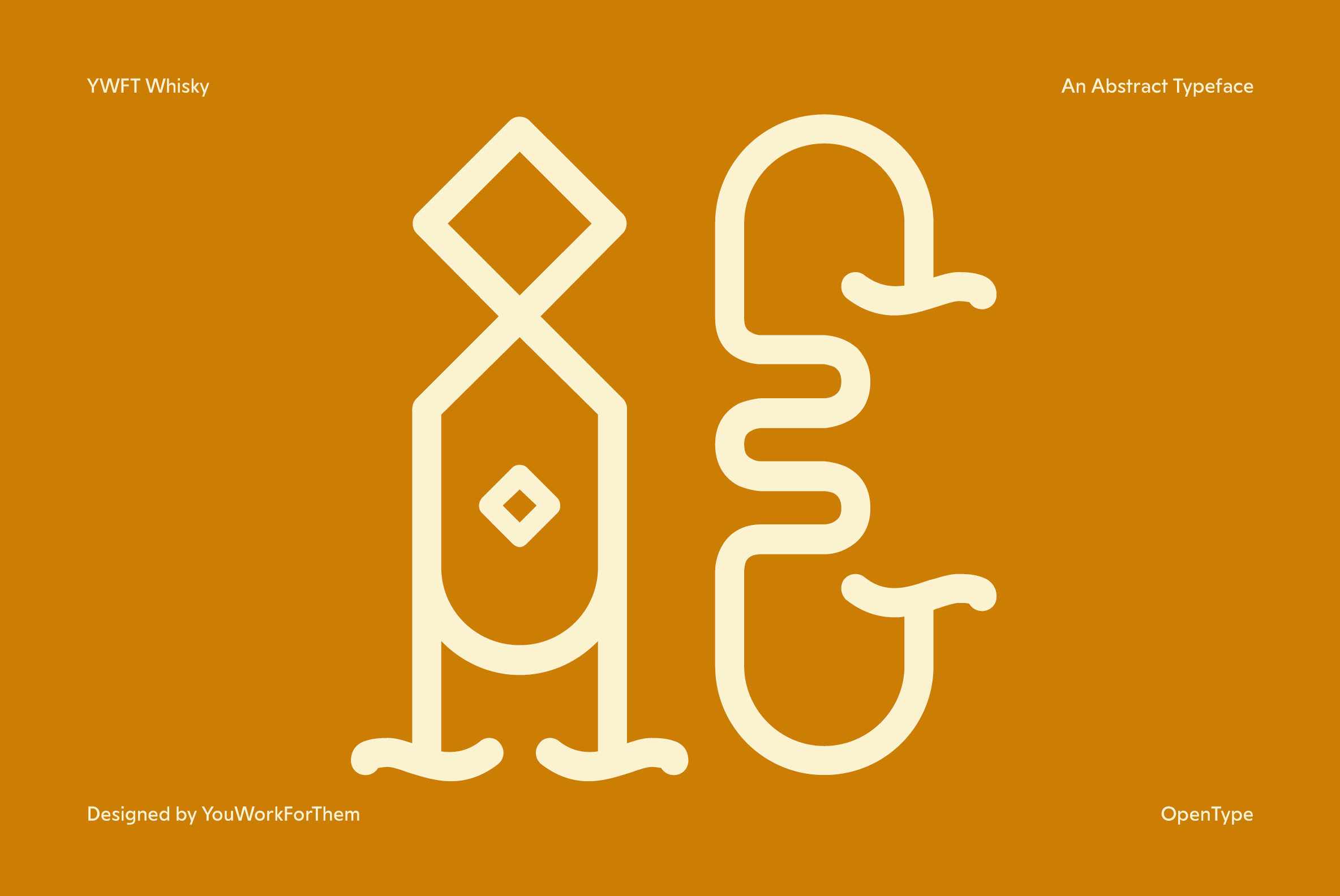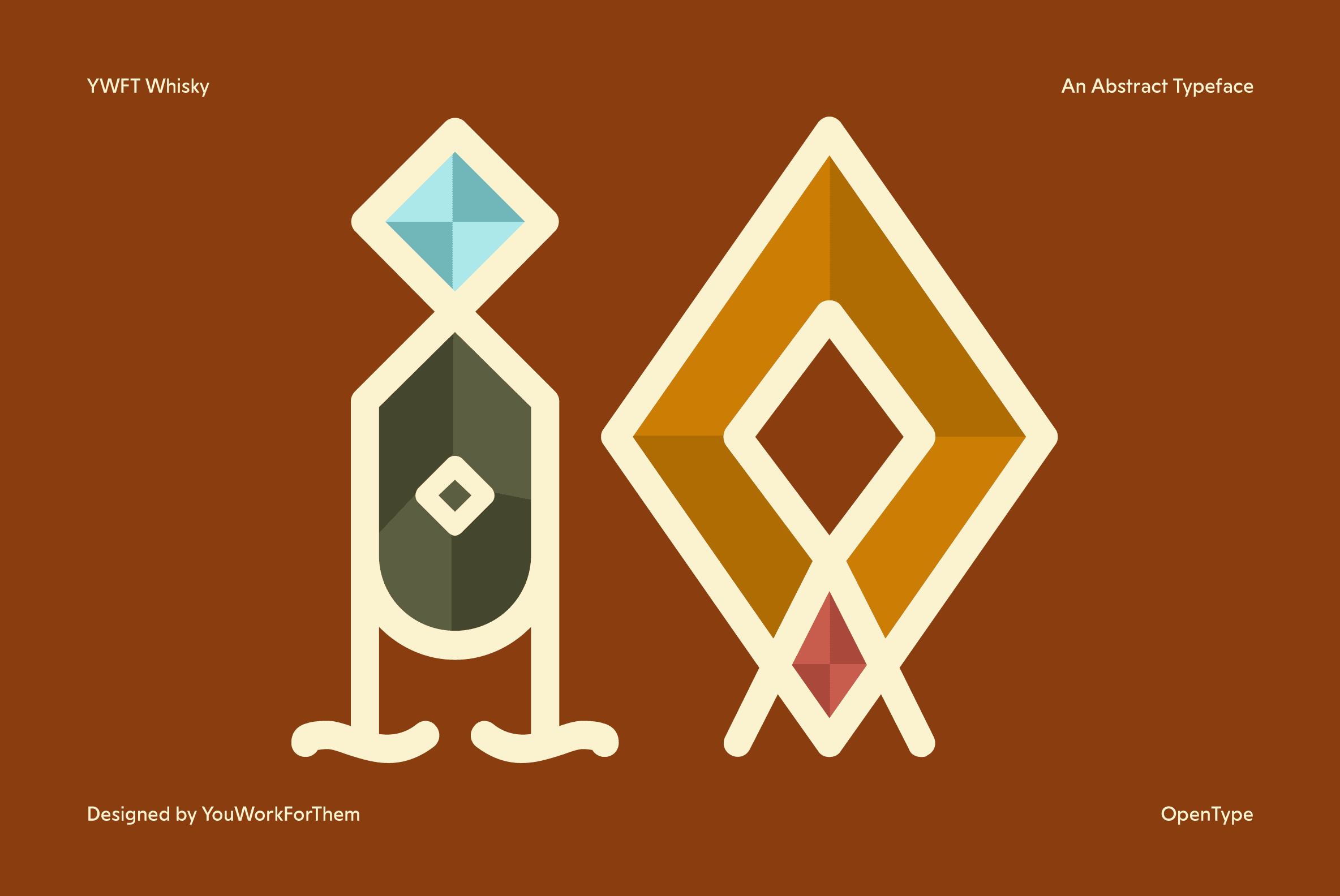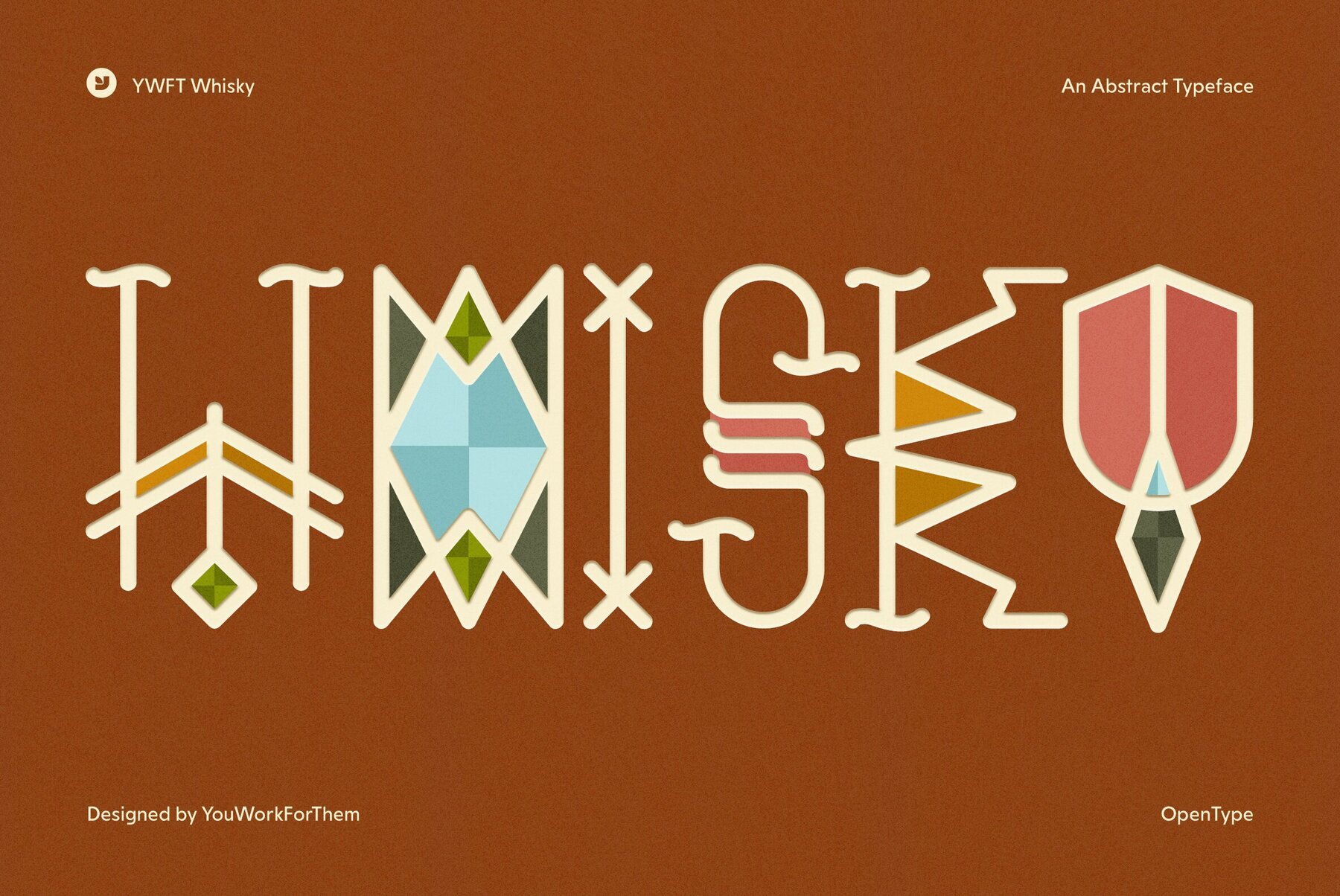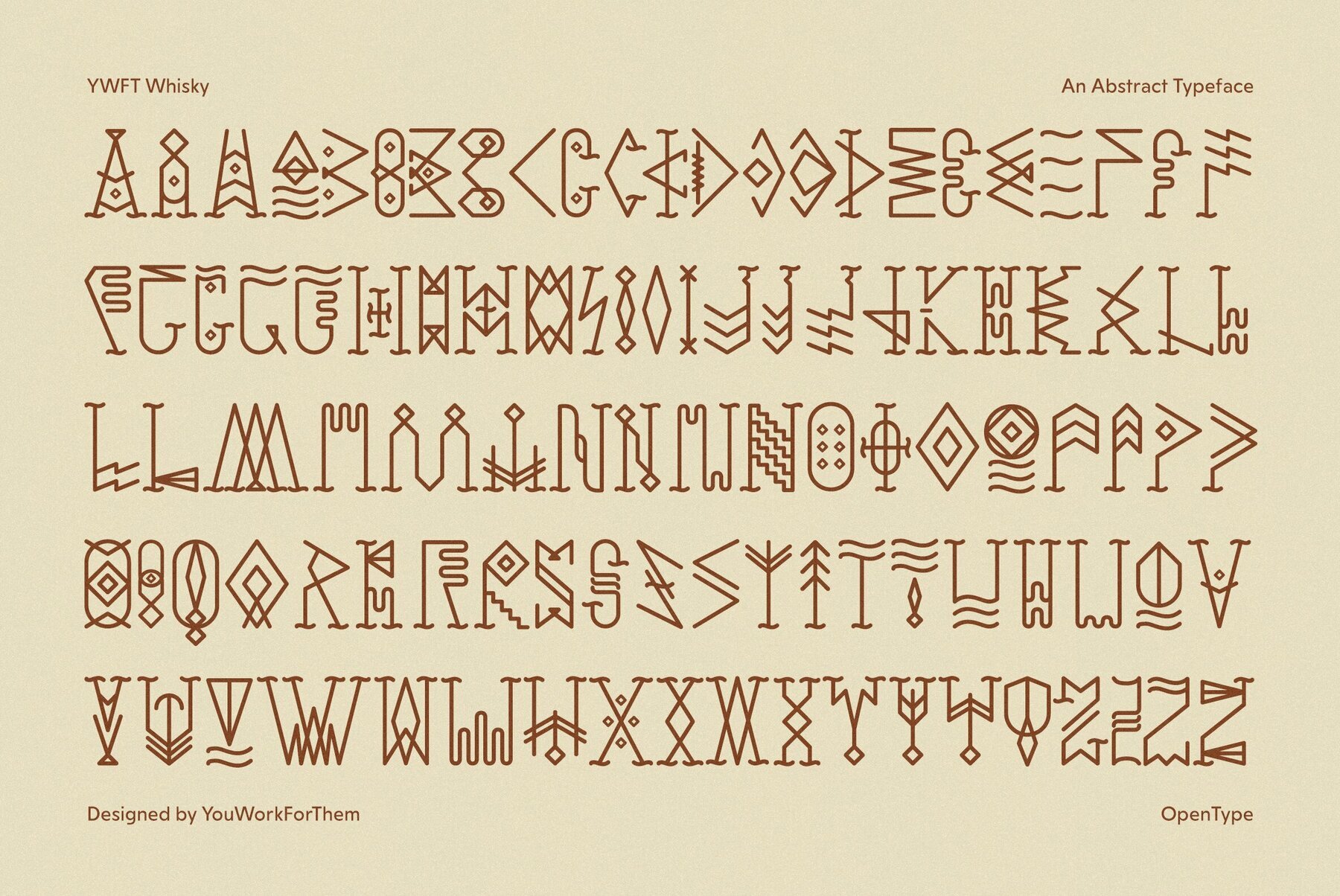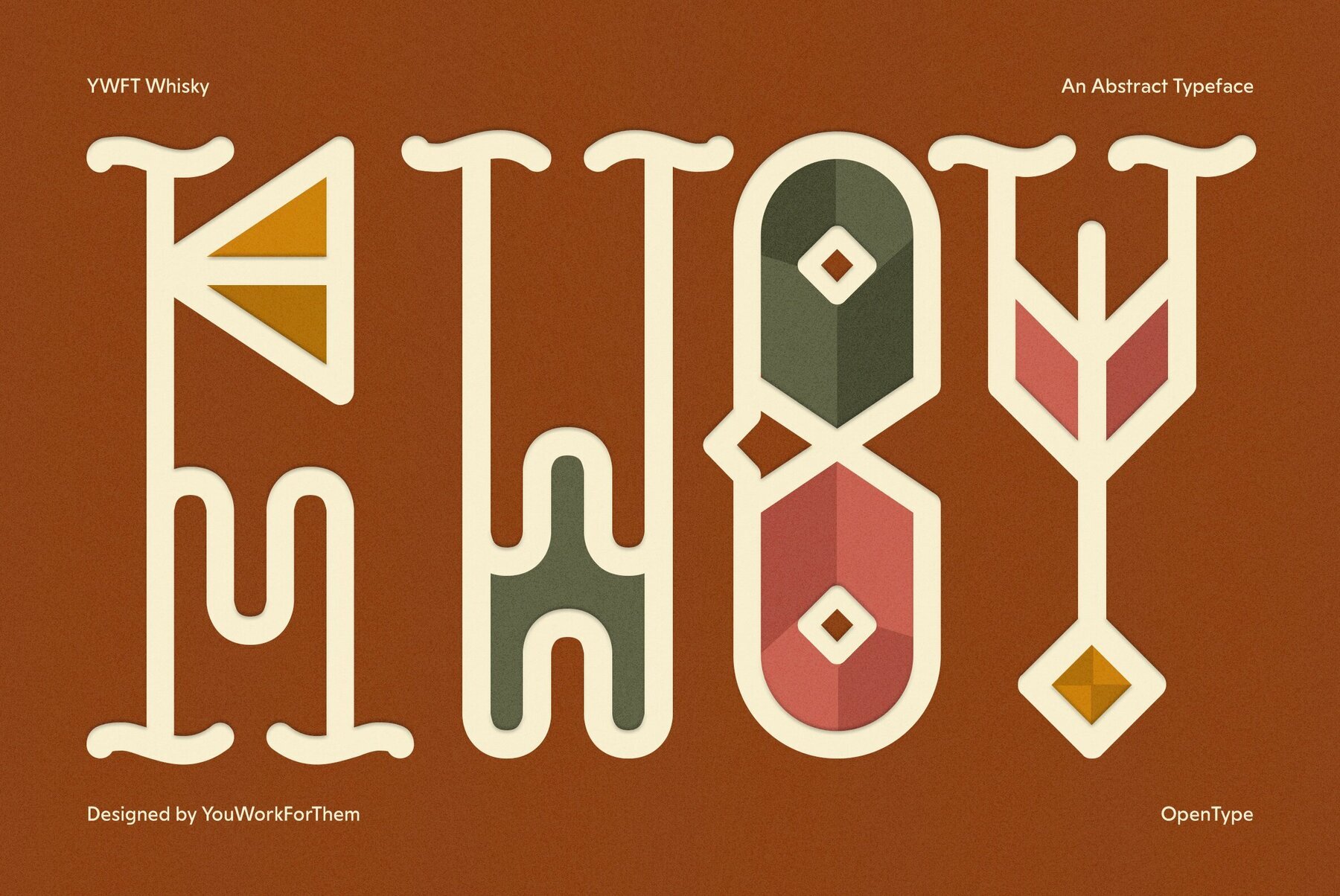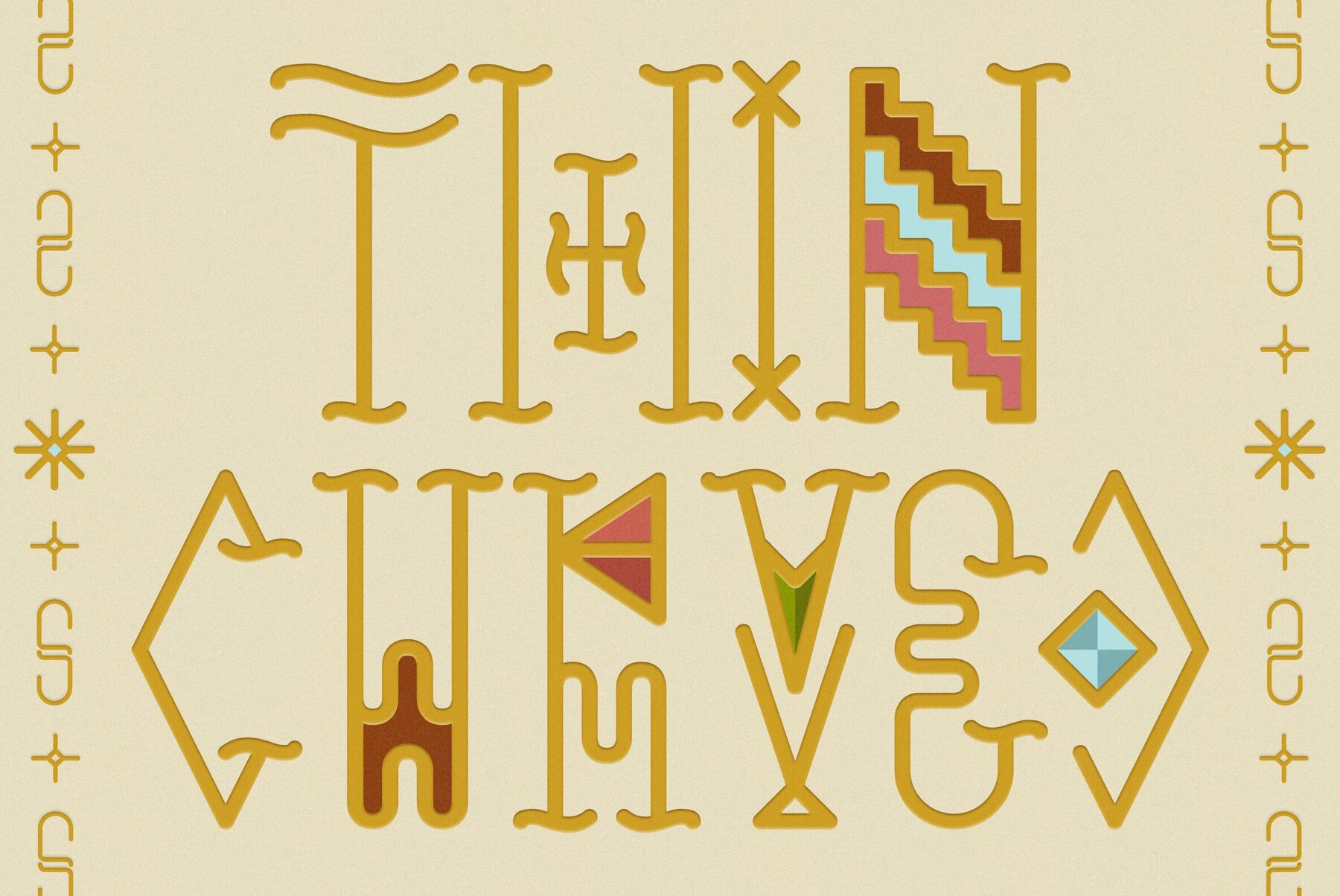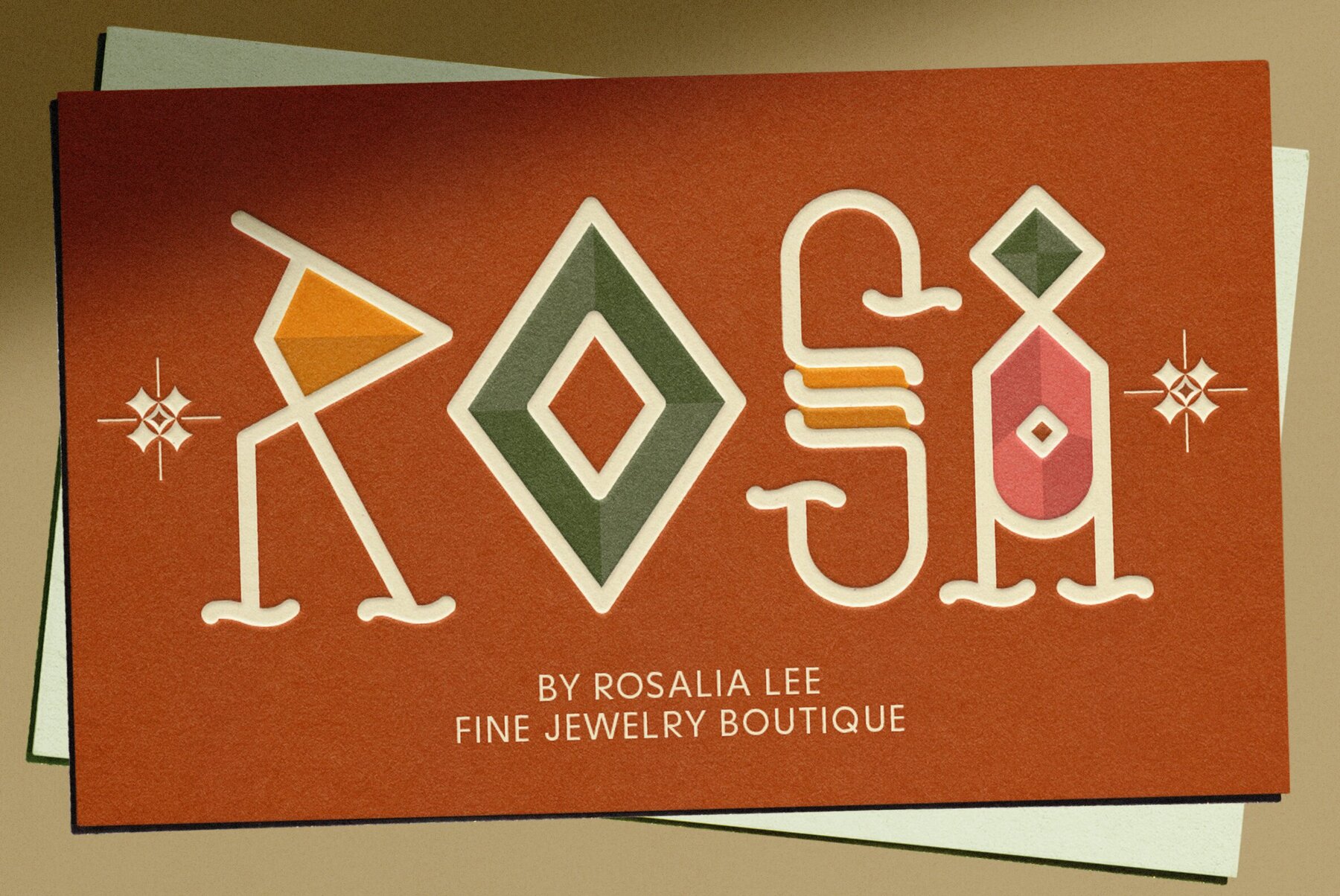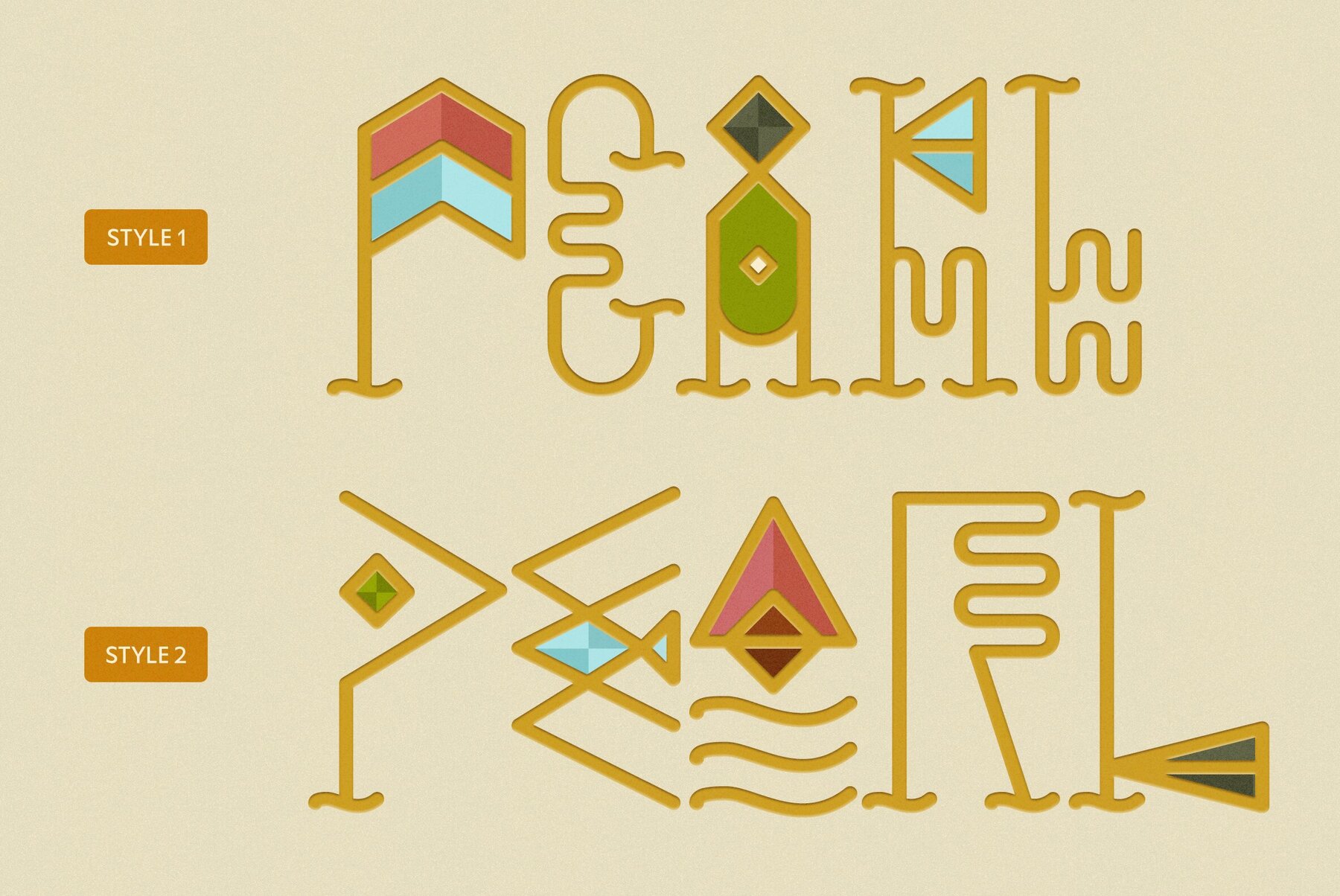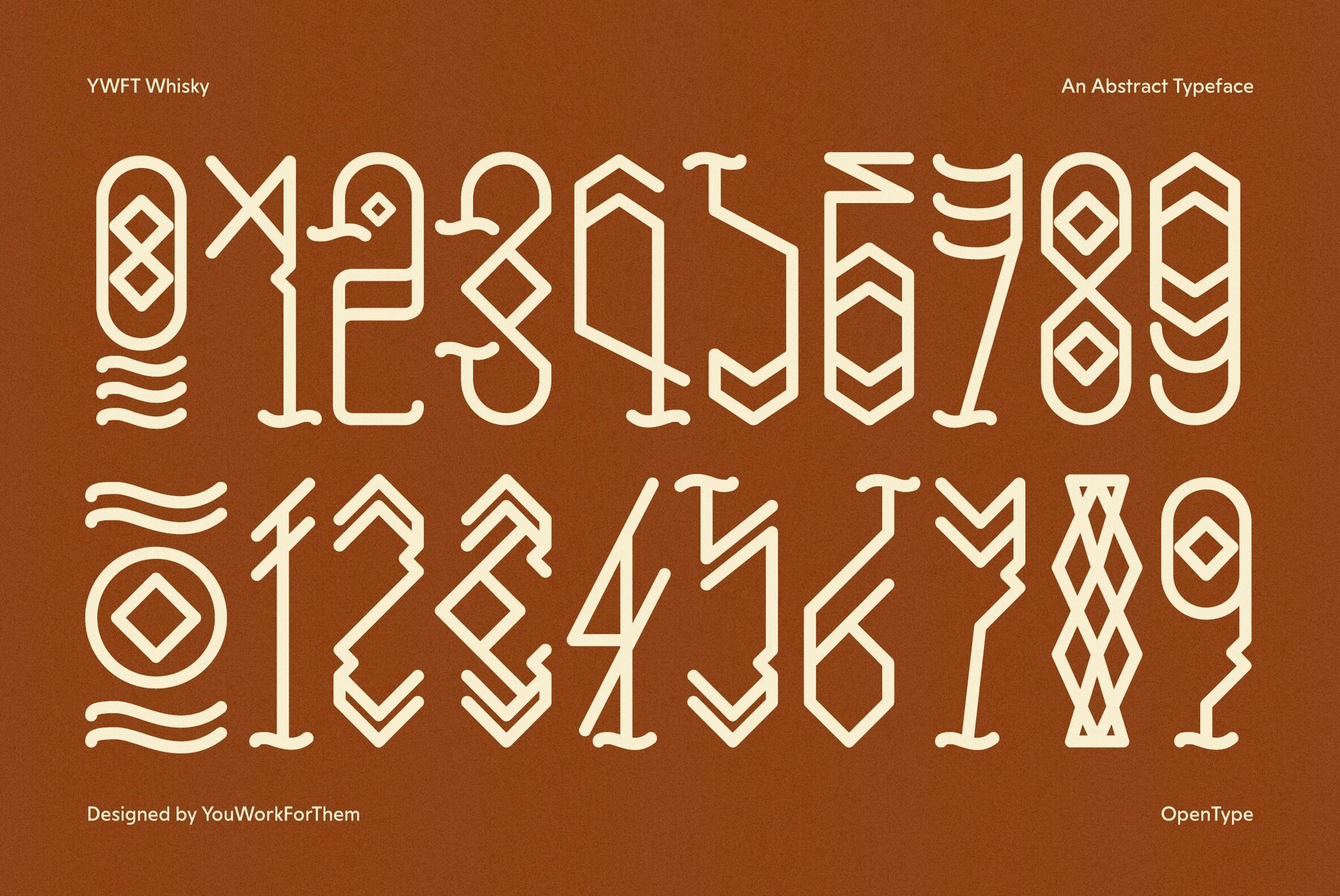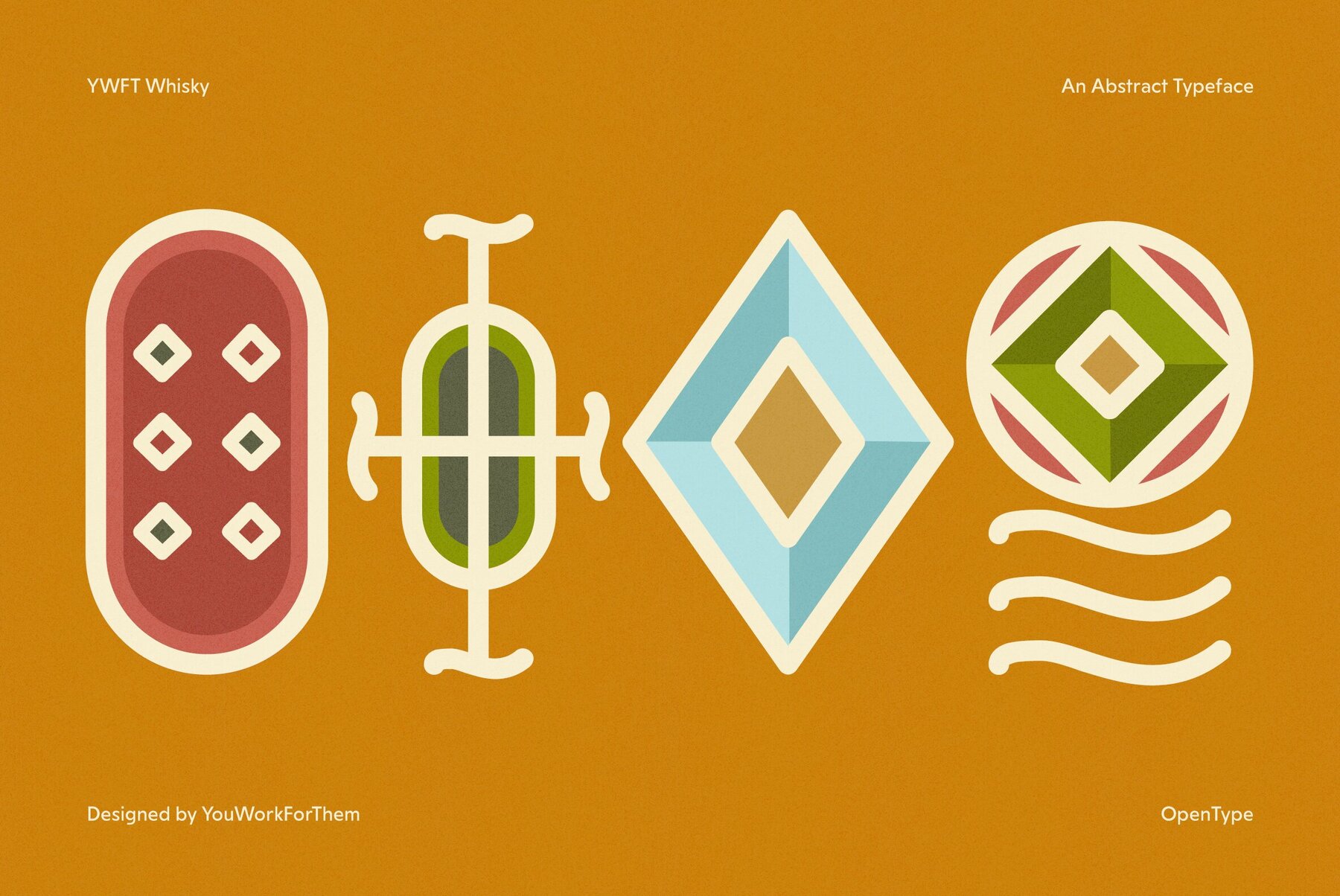
YWFT Whisky
The Precursors. The Founders. The Engineers. Known by many names in popular culture, this colony of erudite masters from Long Before were as style-conscious as they were technically adept, and their written glyphs certainly might have resembled YWFT Whisky. A masterpiece of friendly curves and powerful graphical flair, YWFT Whisky evokes the torch-lit corridors under Giza, with plenty of pre-kerned patterns and stylistic surprises under the hood. Bold, patterned abstractions await in the bottle of this Whiskey. Neat, one cube only please.